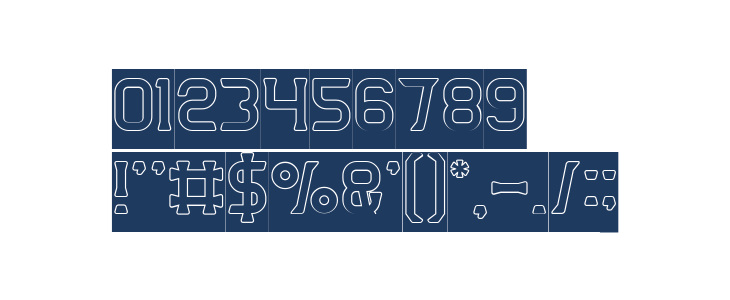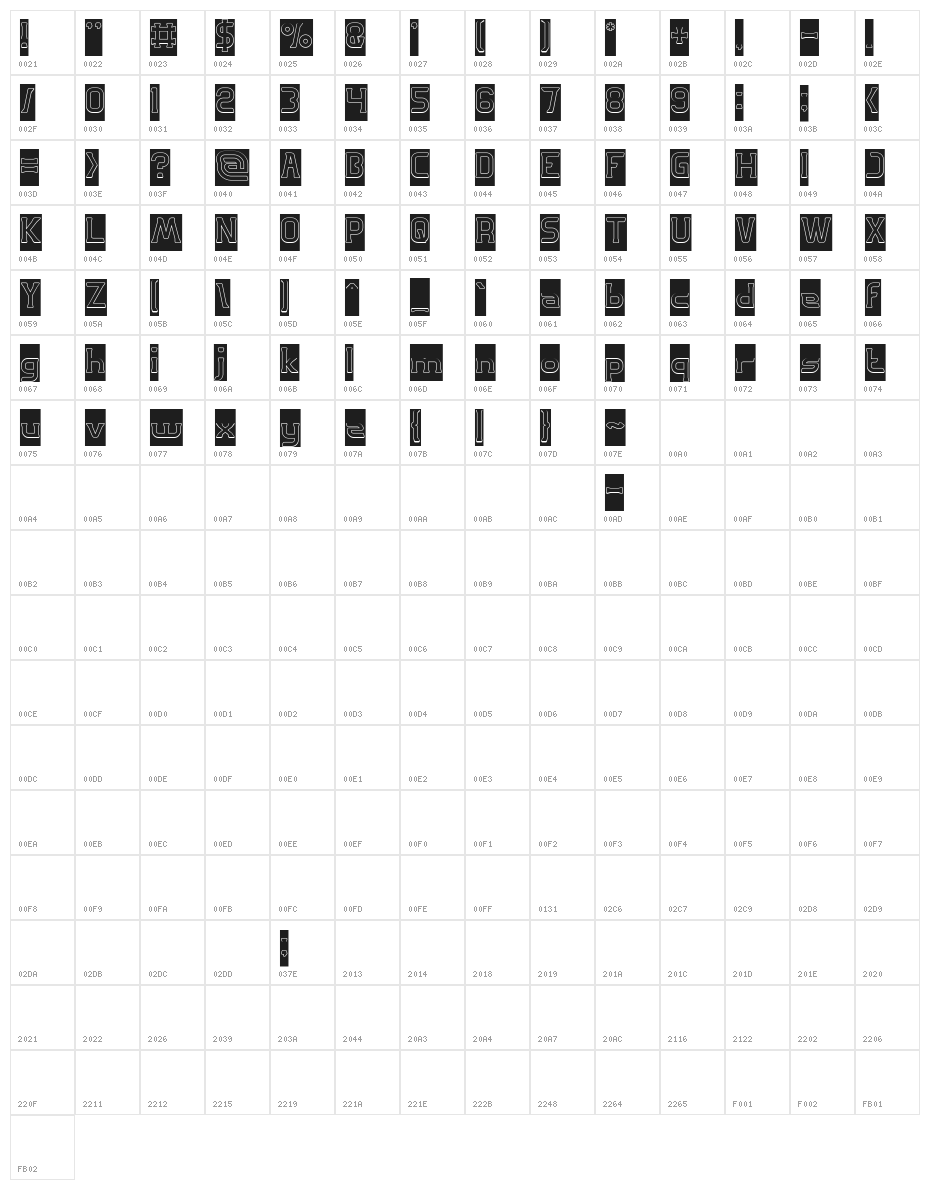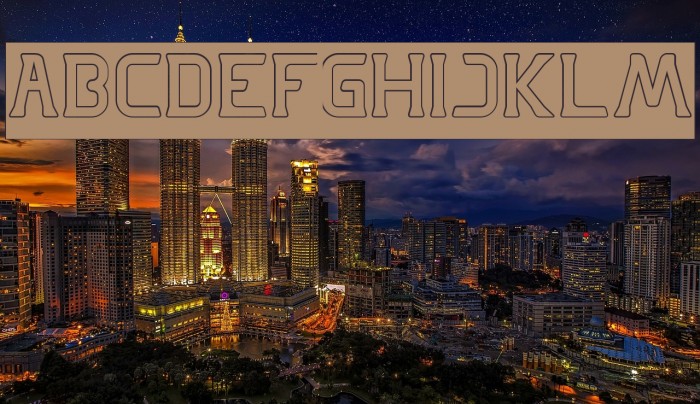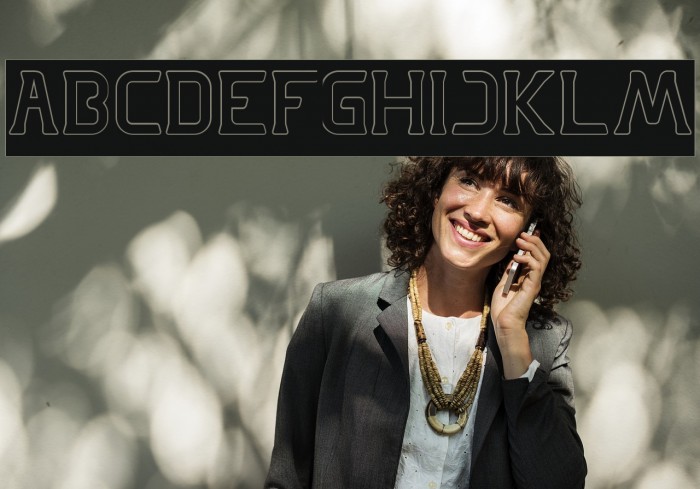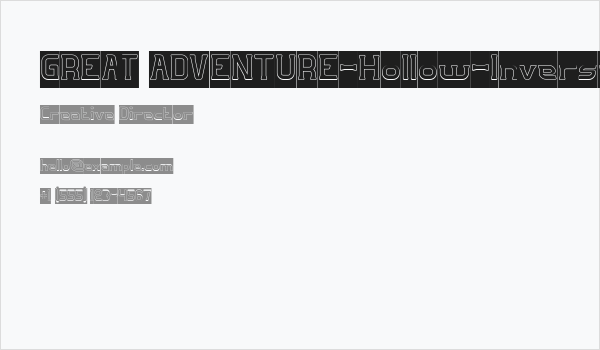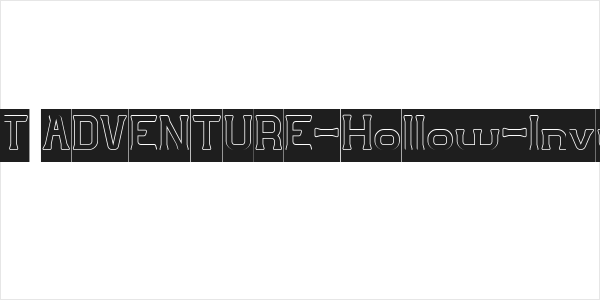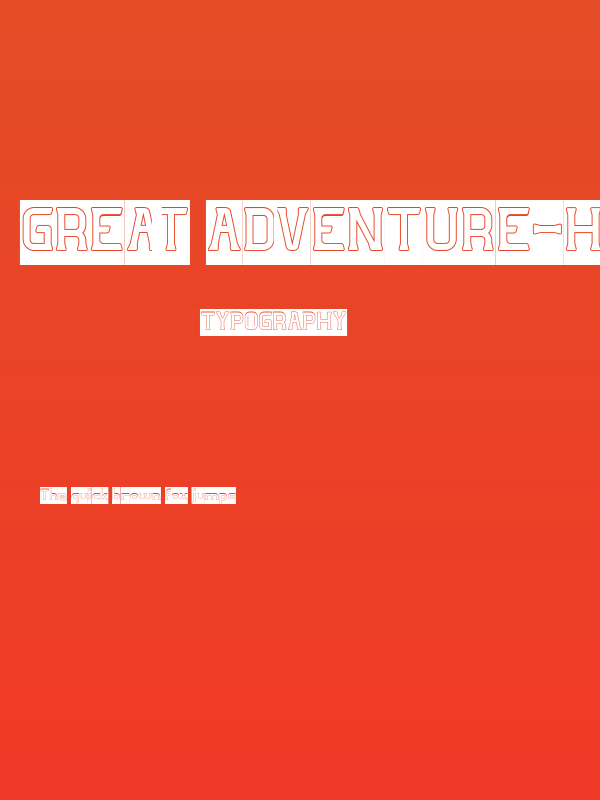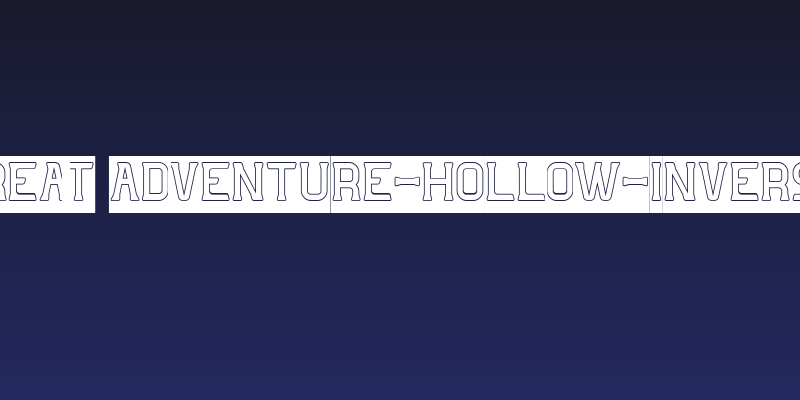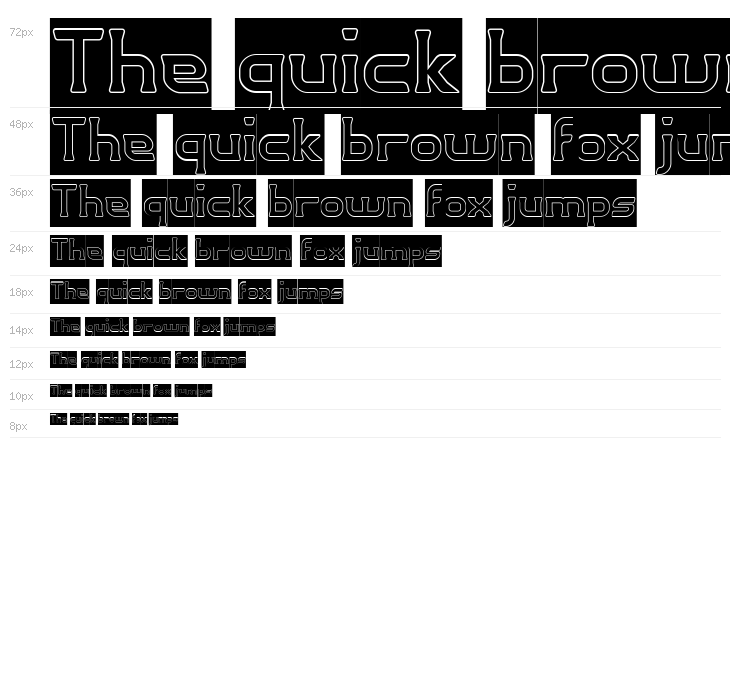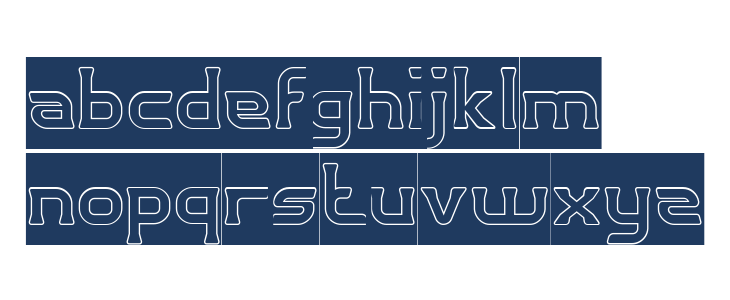
GREAT ADVENTURE-Hollow-Inverse Font
GREAT ADVENTURE-Hollow-Inverse Description
This font features a hollow, outlined style with a modern and adventurous feel. The uppercase and lowercase letters maintain a consistent geometric structure, giving it a bold and striking appearance. The characters are designed with a uniform thickness, creating a balanced and cohesive look. The numbers and special characters follow the same design principles, ensuring a seamless integration across different uses. The font's unique hollow design makes it stand out, making it ideal for eye-catching headlines and creative projects.
| Proposed Projects | Ideal for branding, posters, headlines, and any project requiring a bold and modern aesthetic. |